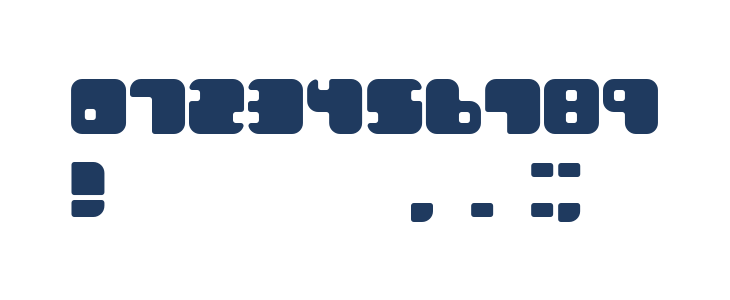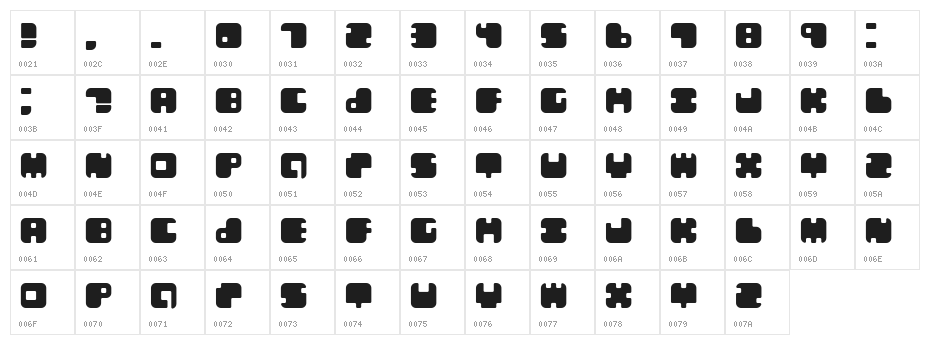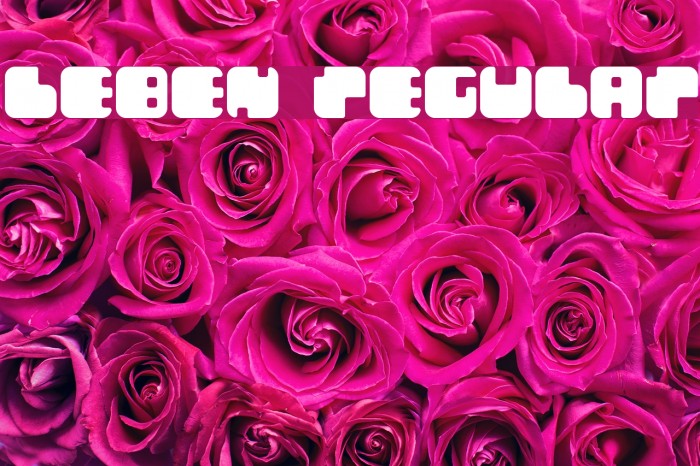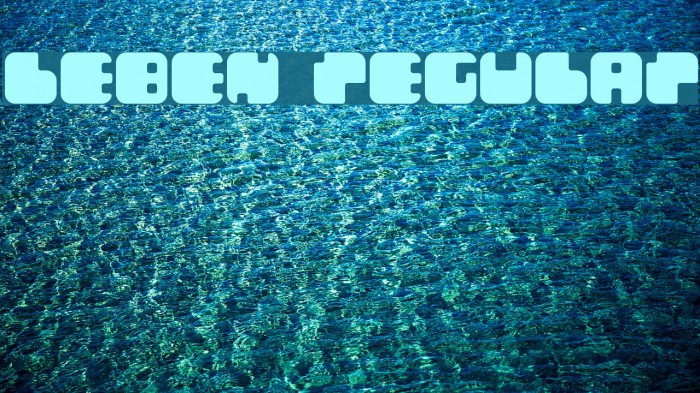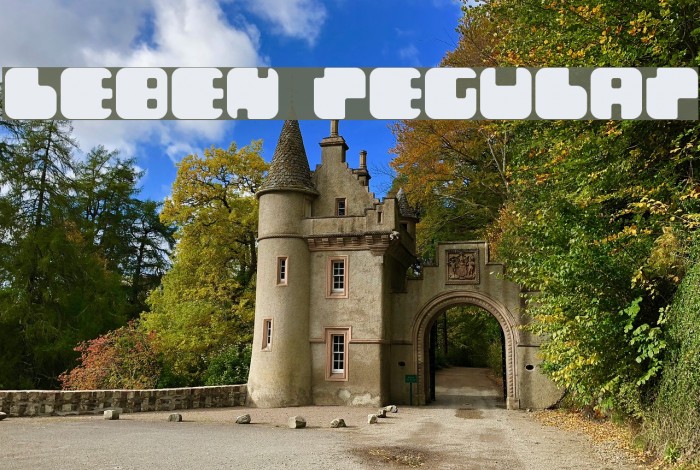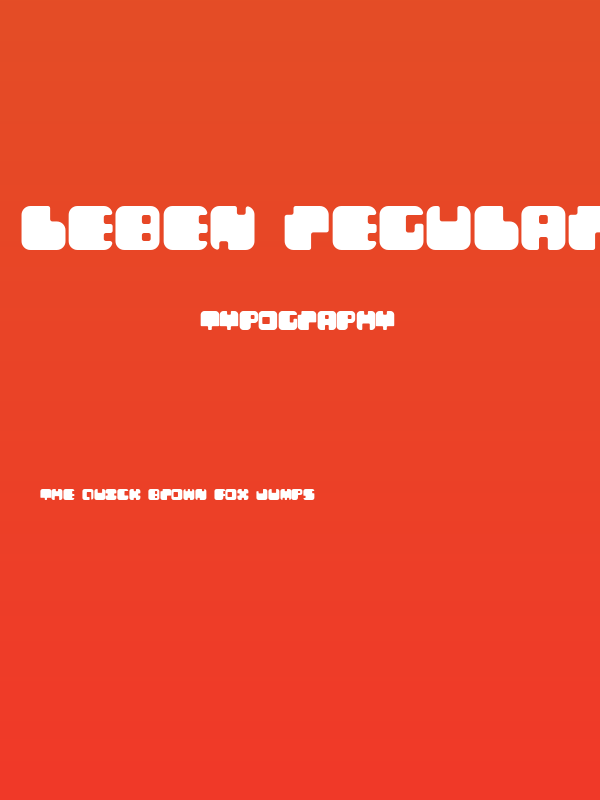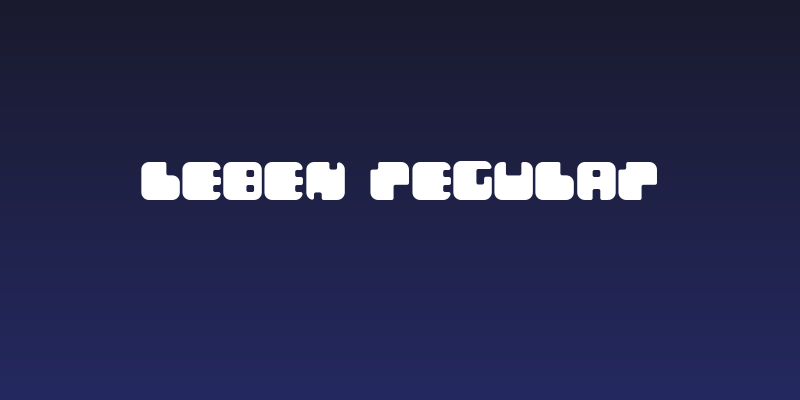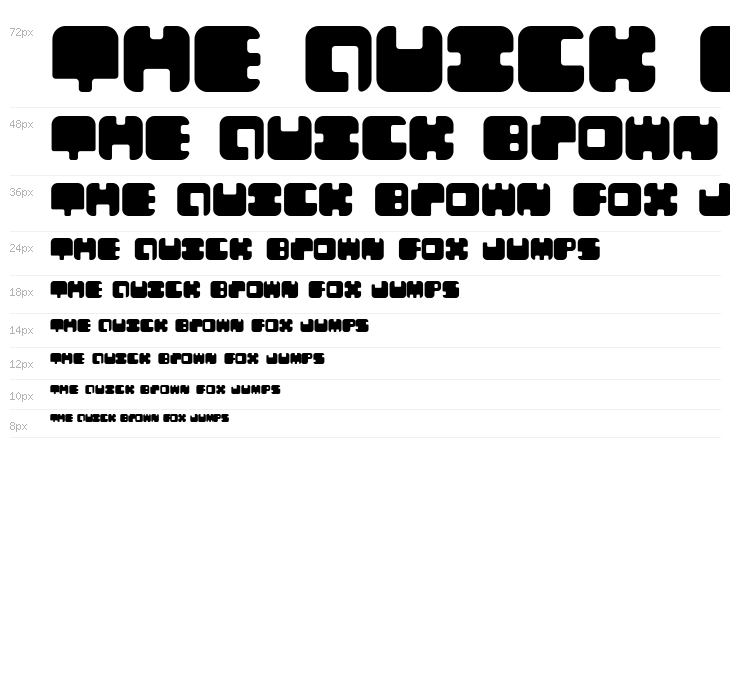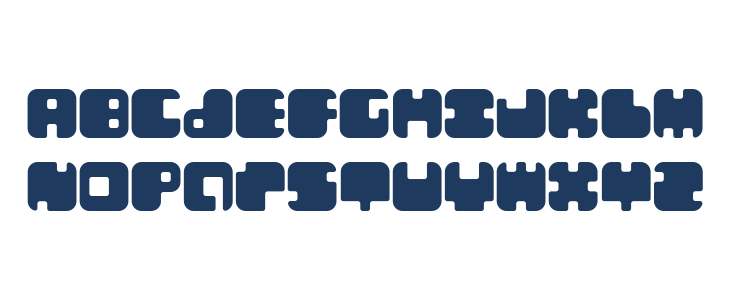
Leben Regular Font
Leben Regular Description
This font features a bold, geometric style with rounded edges and a blocky appearance. The characters are uniformly thick, creating a strong visual impact. Its design is reminiscent of retro digital displays or arcade game aesthetics, with a playful yet robust presence. The uniformity in stroke width and the absence of serifs contribute to its modern and clean look. The font's distinctiveness lies in its ability to convey a sense of fun and nostalgia while maintaining readability. It is well-suited for projects that require a bold statement or a vintage digital feel.
| Overall Style | Retro, Modern |
| Proposed Projects | Ideal for video game graphics, retro-themed posters, digital displays, and branding that seeks a playful yet bold aesthetic. |